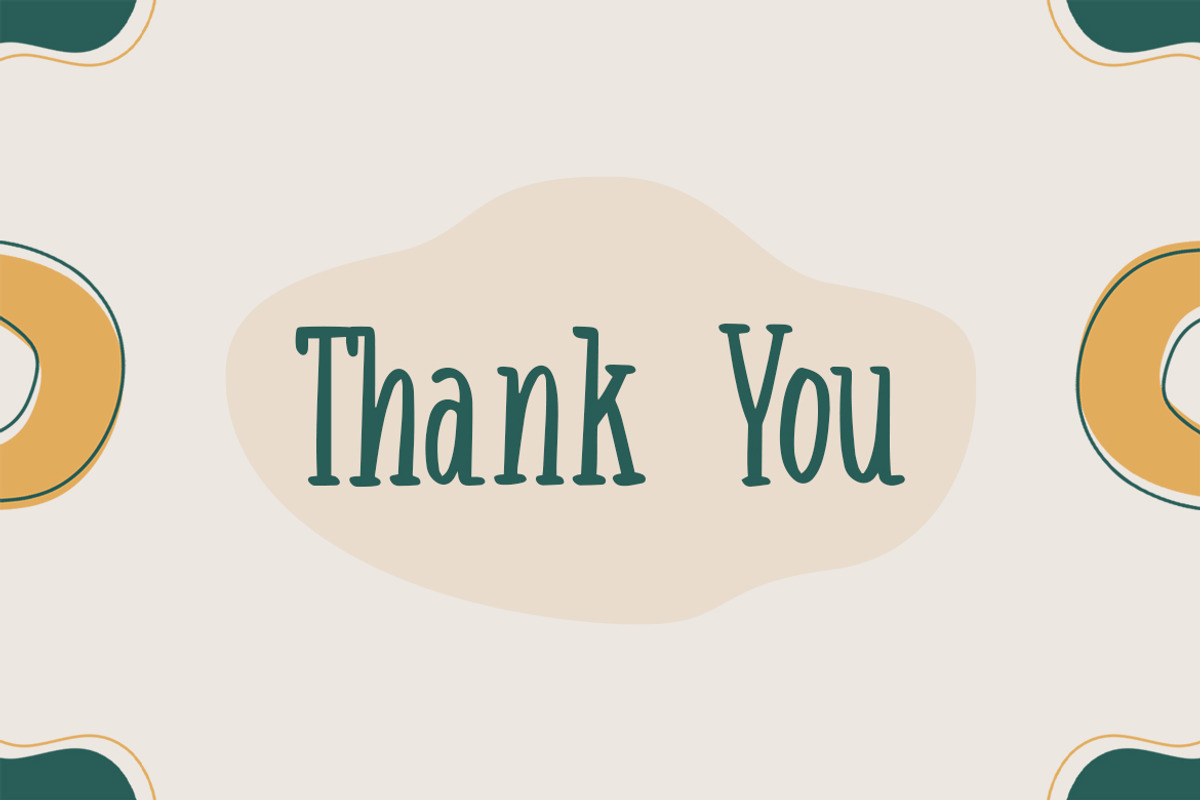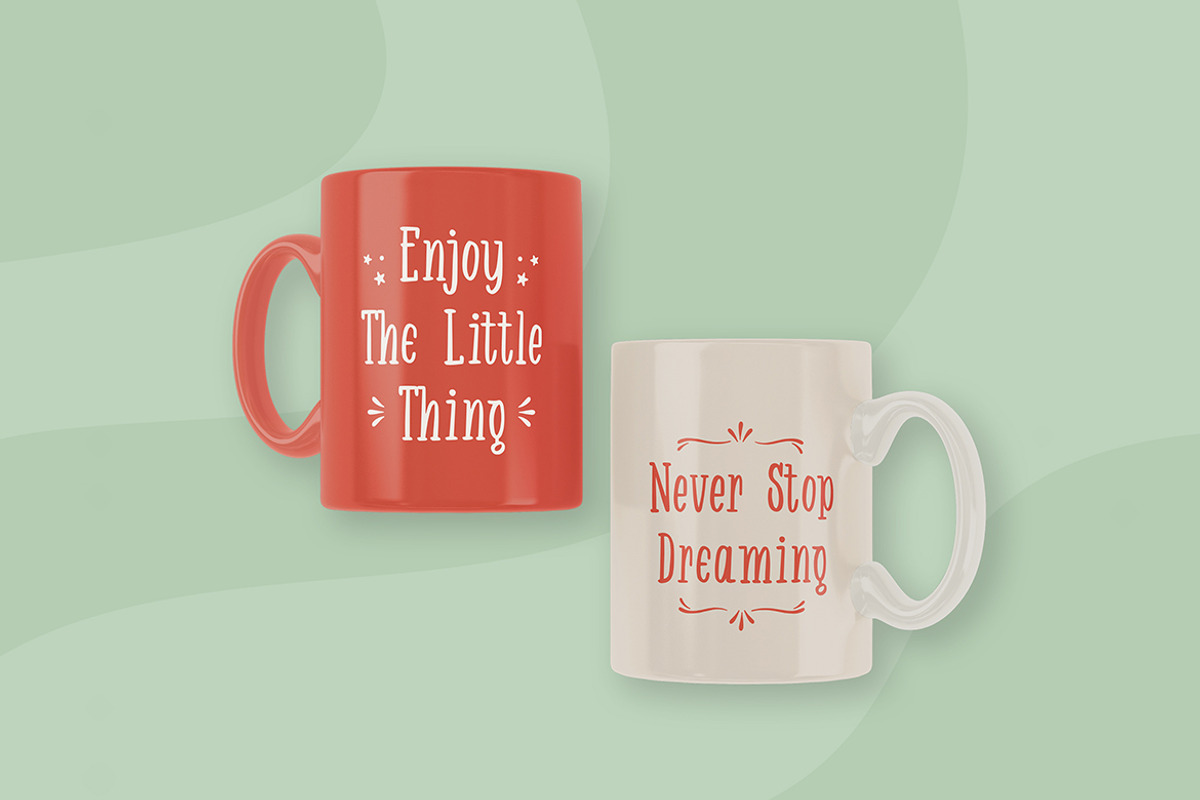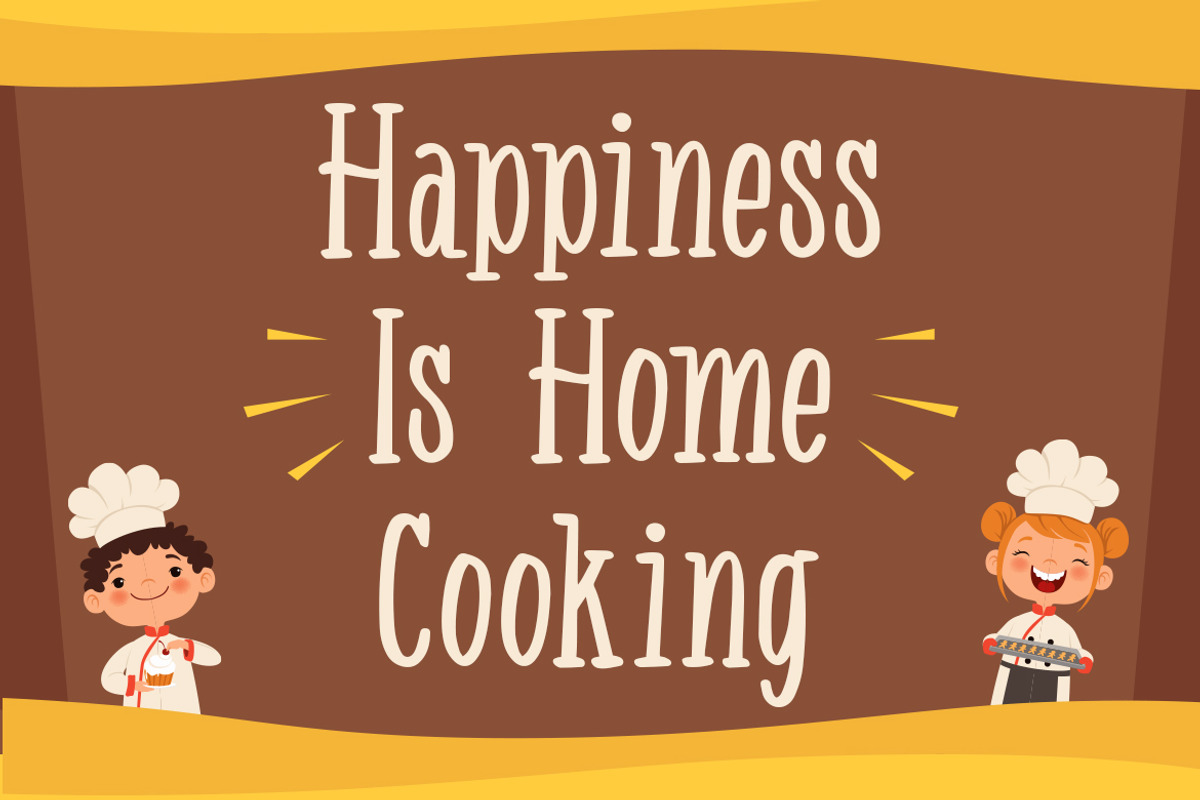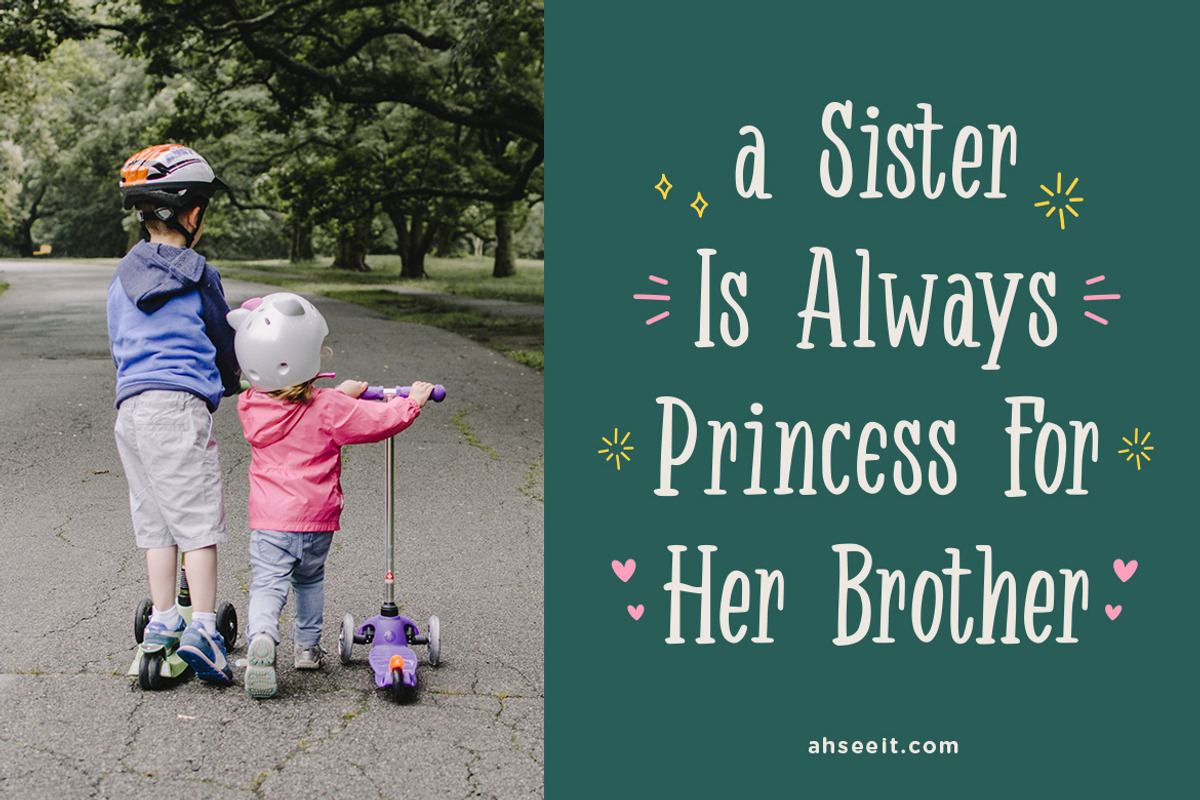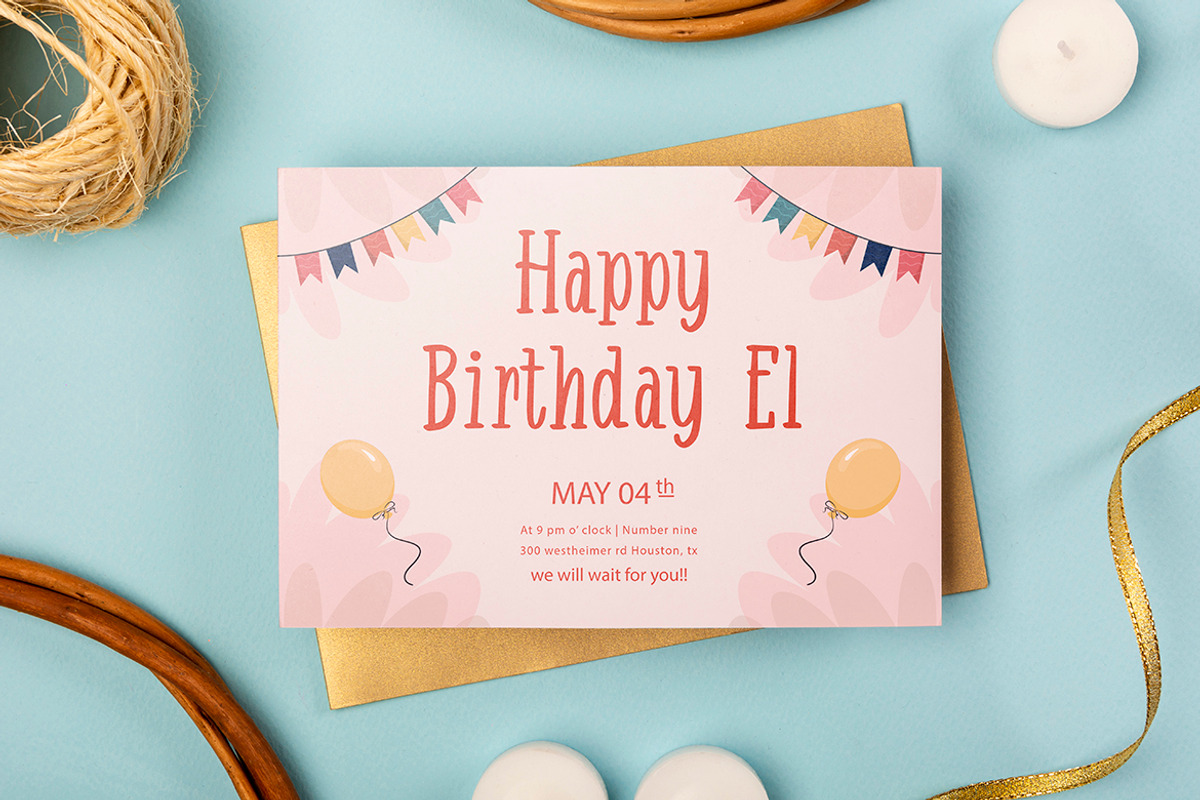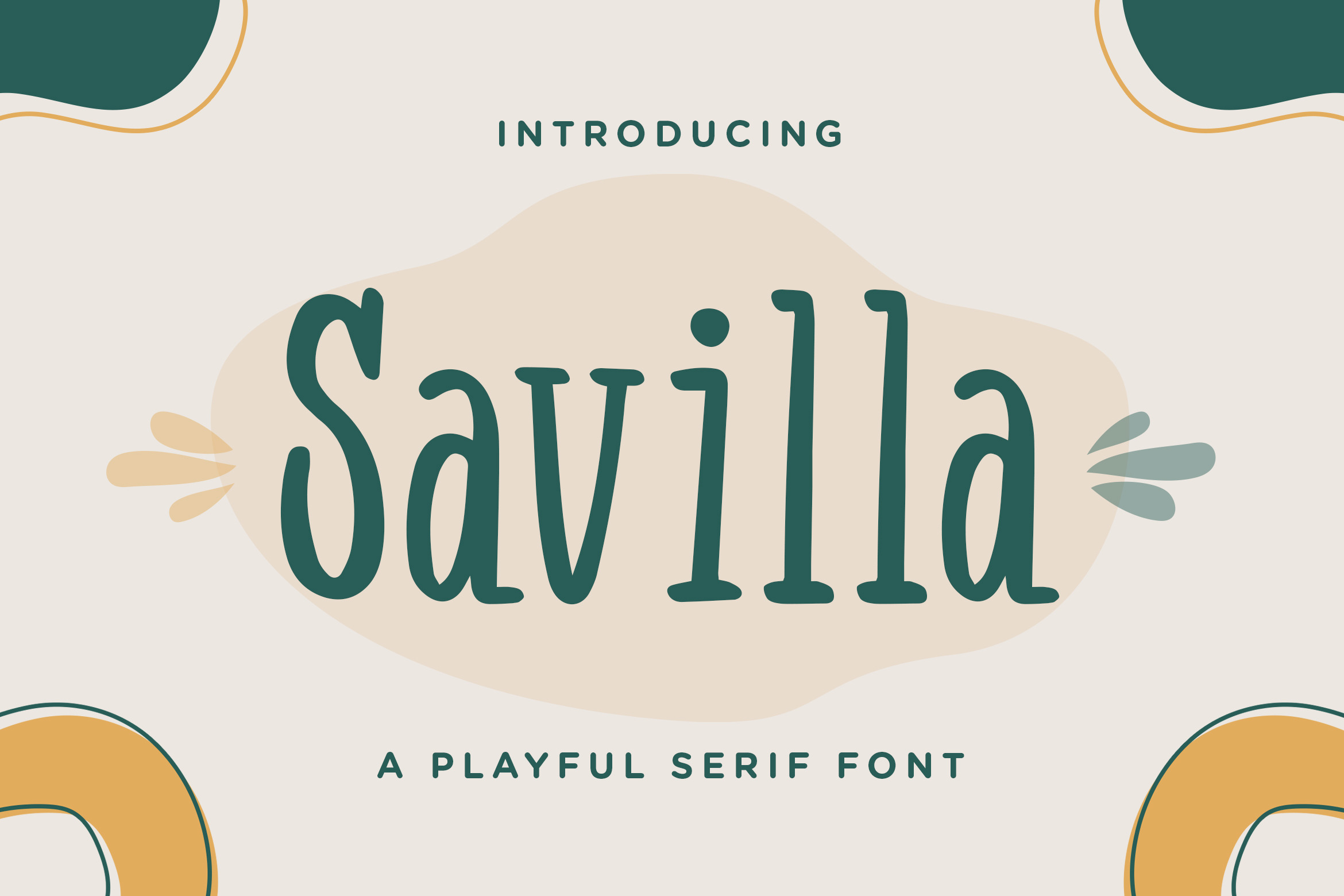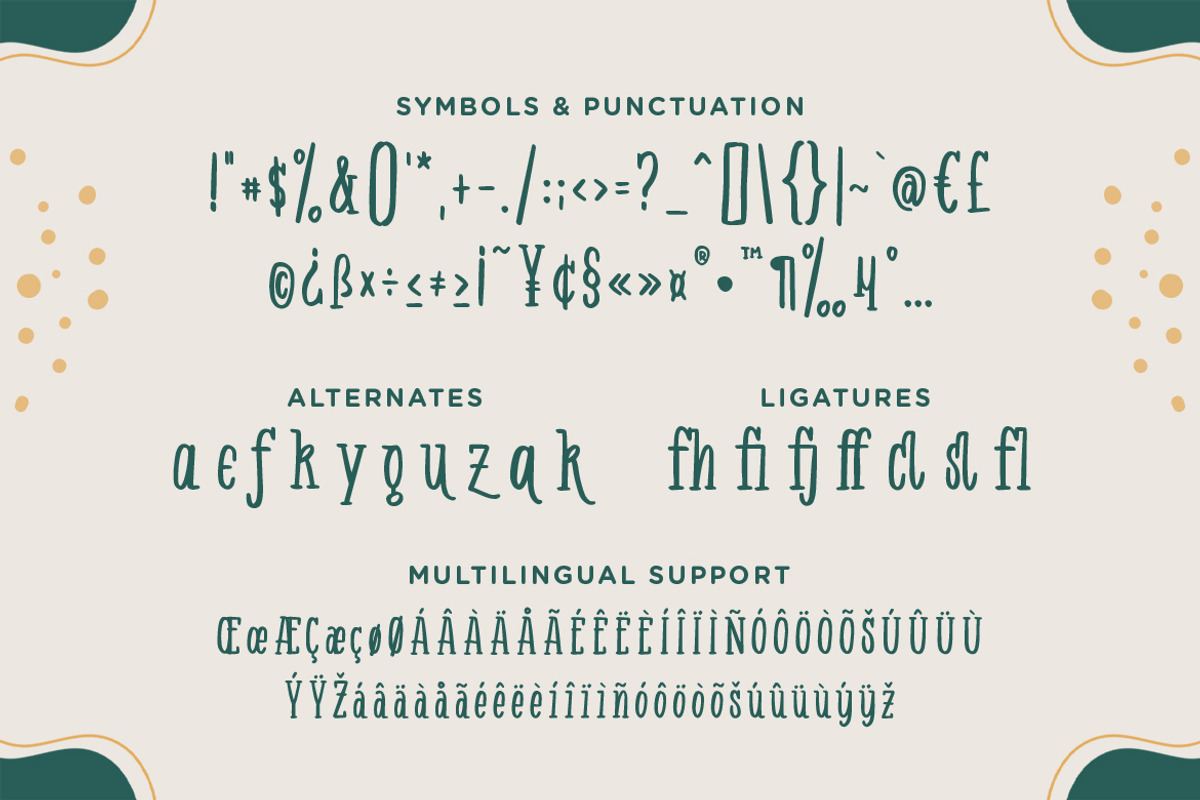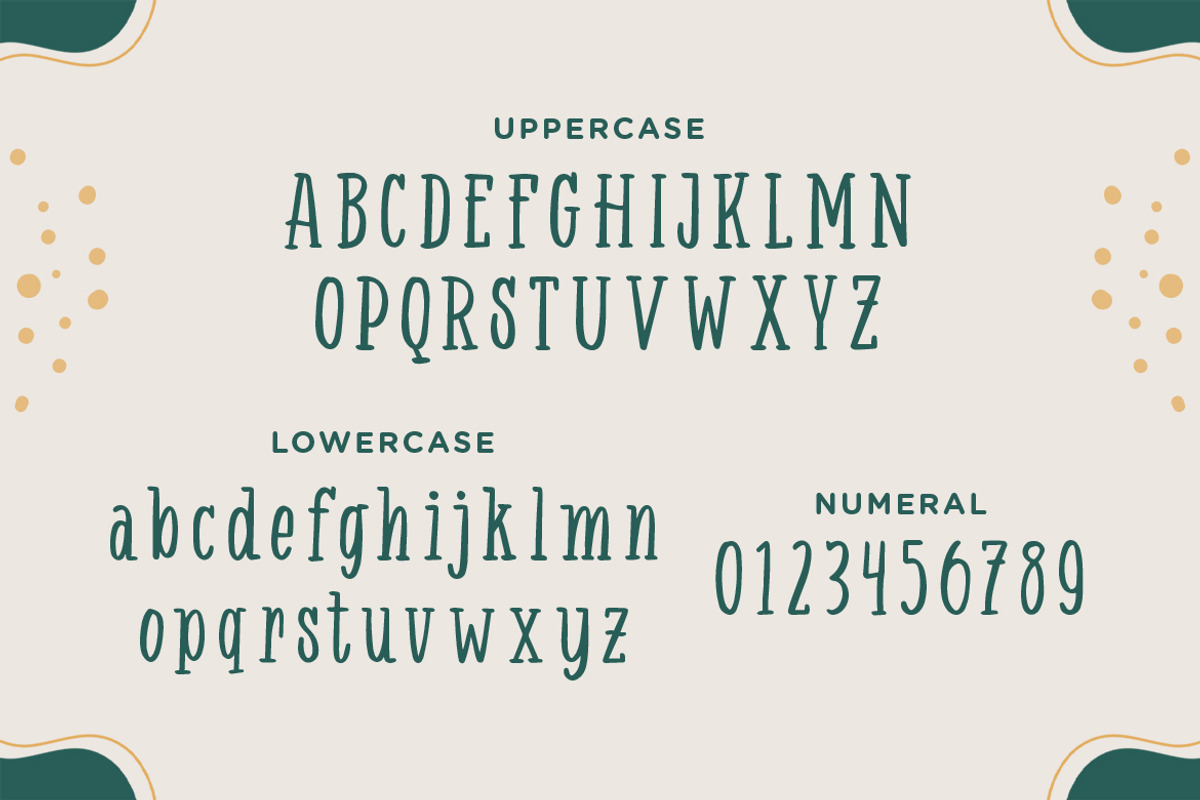
Savilla - A Playful Serif Font
Savilla is a playful serif font. Savilla has a fun and cheerful vibes suited for playful kids theme. Adorable and funny, this serif font will be the ideal choice for any school project or playground design you wish to develop.
- Symbols & Punctuation
- Numeral